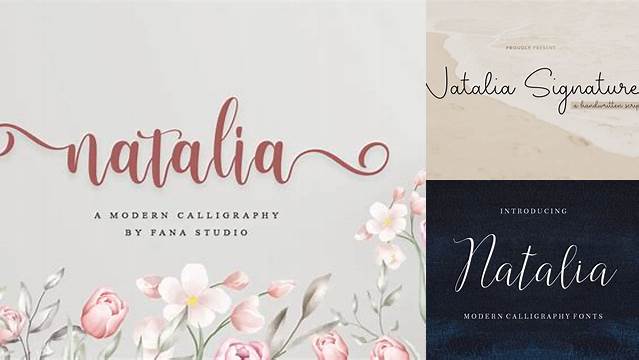
Get Natalia Script Font FREE: Download & Elevate Your Design
Hey design enthusiasts! Are you looking for a font that oozes elegance, charm, and a touch of sophistication? Well, look no further! Today, we're diving headfirst into the world of the Natalia Script Regular font, and guess what? You can snag it with a free download! This gorgeous font is perfect for adding a personal touch to your projects, whether you're designing wedding invitations, crafting beautiful logos, or simply jazzing up your social media posts. Get ready to explore everything you need to know about this fantastic typeface, including where to find that coveted free download and how to make the most of it. Let's get started, shall we?
1. Unveiling the Allure of the Natalia Script Regular Font
Natalia Script Regular is more than just a font; it's a statement. It's a carefully crafted typeface that embodies grace and fluidity. Its flowing strokes and delicate curves make it an ideal choice for projects where you want to convey a sense of elegance and sophistication. When you think of classic script fonts, the Natalia Script Regular font often comes to mind. It has a timeless quality that makes it suitable for a wide range of design applications. The font features a balanced weight, making it easy to read while still maintaining its artistic flair. It's a versatile font that can adapt to various design aesthetics, from modern to vintage. The subtle details in each character demonstrate the meticulous attention to detail by its designer. The beauty of this typeface lies in its ability to add a touch of personality to any design. The font is designed to look natural and flowing, mimicking the look of handwritten text. Its inherent elegance makes it a great choice for projects that need a personal or handcrafted feel. Think of the font as a tool to communicate a particular mood or feeling. It’s not just about the letters; it’s about the emotions the font evokes. When used correctly, the Natalia Script Regular font can make your designs look professional and polished, adding an extra layer of detail. Its balanced aesthetic appeal allows the font to be utilized for a variety of projects. Overall, the Natalia Script Regular font represents a sophisticated and versatile design asset.
2. Why Choose Natalia Script for Your Projects?
So, why should you opt for the Natalia Script Regular font for your next project? Well, let's break it down. First off, this font is a visual treat. The way each letter flows into the next creates a sense of movement and beauty that instantly grabs attention. It's perfect for headings, logos, or any design element where you want to make a strong visual impact. The font's readability is another key advantage. Unlike some overly ornate script fonts, Natalia Script Regular strikes a perfect balance between style and legibility. This means your audience can easily understand your message, which is crucial for effective communication. Moreover, this font adds a touch of personality to your designs, making them feel more human and approachable. In a world of generic fonts, Natalia Script Regular stands out, injecting a sense of individuality and flair. When you choose this font, you're not just picking letters; you're choosing a mood, an emotion, a feeling. It’s about conveying a specific tone or style that connects with your audience on a deeper level. The versatility of the Natalia Script Regular font is another reason to consider it. It’s suitable for various projects, from wedding invitations and greeting cards to branding materials and social media graphics. Because of its adaptable nature, the Natalia Script Regular font can be used in a variety of contexts, making it an excellent choice. Ultimately, choosing this font means you're opting for a font that is both beautiful and functional. It's an excellent combination of style, readability, and versatility, making it an invaluable asset for any designer. When considering the Natalia Script Regular font, consider the lasting impression it can make on your audience.